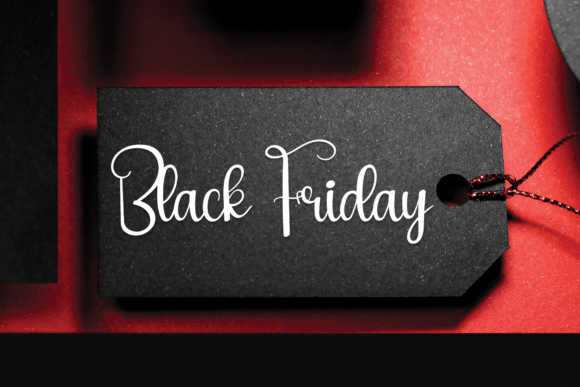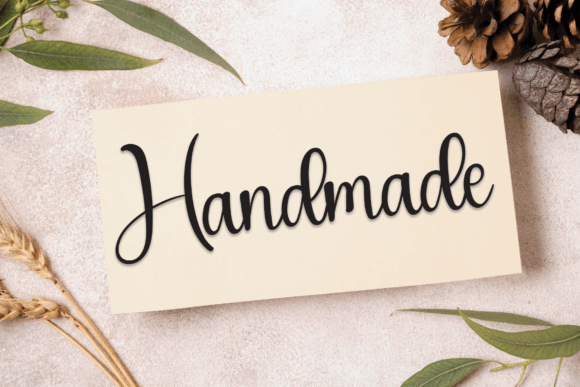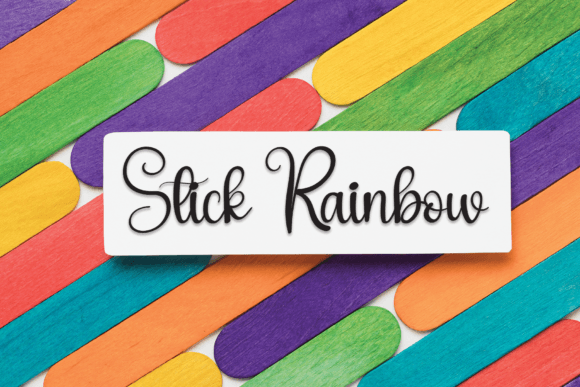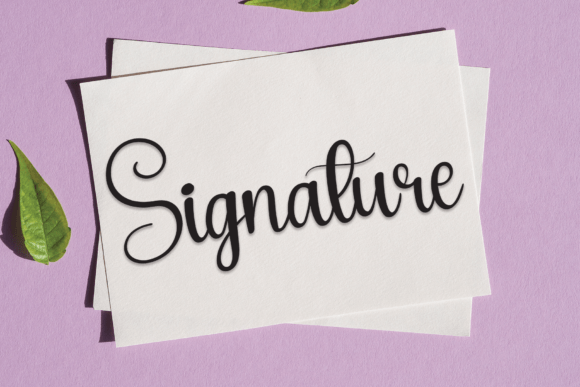
Candy Christmas Font: The Sweetest Addition to Your Design Projects
Are you looking for a font that adds a touch of festive fun and whimsy to your designs? Look no further than the Candy Christmas Font! This latest style font is perfect for a variety of projects, from wall displays and wedding invitations to social media posts, logos, advertisements, product packaging, and more.
What Makes Candy Christmas Font So Special?
The Candy Christmas Font is a unique and eye-catching font that is sure to add a touch of holiday cheer to any project. Its playful, handwritten style is reminiscent of candy canes, gingerbread men, and other sweet holiday treats. The font is highly versatile and can be used for a wide range of design projects, including:
- Wall displays and signage
- Advertisements and marketing materials
- Product packaging and design
- Labels and stickers
- Photography and watermarks
- Invitations and party decorations
- Stationery and gift tags
Why Designers and Crafters Love Candy Christmas Font
Designers and crafters alike will love the Candy Christmas Font for its unique and playful style. Here are just a few reasons why:
- Easy to read and use: Despite its whimsical style, the Candy Christmas Font is highly legible and easy to use, even for large blocks of text.
- Highly versatile: The font can be used for a wide range of projects, from digital designs to print materials.
- Festive and fun: The Candy Christmas Font adds a touch of holiday cheer to any project, making it perfect for seasonal designs.
- Unique and eye-catching: The font’s playful style is sure to grab attention and make your designs stand out.
How to Use Candy Christmas Font in Your Designs
Using the Candy Christmas Font in your designs is easy! Here are a few tips to get you started:
- Pair with complementary fonts: Combine the Candy Christmas Font with other fonts to create a unique and visually appealing design.
- Experiment with colors and textures: Add depth and interest to your designs by experimenting with different colors and textures.
- Use for headings and titles: The Candy Christmas Font is perfect for headings and titles, adding a touch of festive fun to your designs.
- Add to your design toolkit: Make the Candy Christmas Font a part of your design toolkit, using it to add a touch of whimsy to your projects.
Tips for Crafters and Small Business Owners
If you’re a crafter or small business owner, the Candy Christmas Font is a great addition to your design arsenal. Here are a few tips for using the font in your projects:
- Use for product labels and packaging: Add a touch of festive fun to your product labels and packaging with the Candy Christmas Font.
- Create eye-catching social media graphics: Use the Candy Christmas Font to create eye-catching social media graphics that showcase your products or services.
- Add to your stationery and invitations: Use the Candy Christmas Font to add a touch of whimsy to your stationery and invitations.
- Experiment with DIY projects: Use the Candy Christmas Font to add a personal touch to your DIY projects, such as handmade cards and gift tags.
In conclusion, the Candy Christmas Font is a fun and versatile font that is perfect for a wide range of design projects. Its playful, handwritten style adds a touch of festive fun and whimsy to any design, making it a great addition to your design toolkit. Whether you’re a designer, crafter, or small business owner, the Candy Christmas Font is sure to become a favorite.